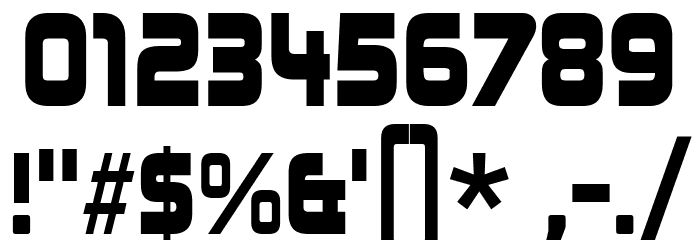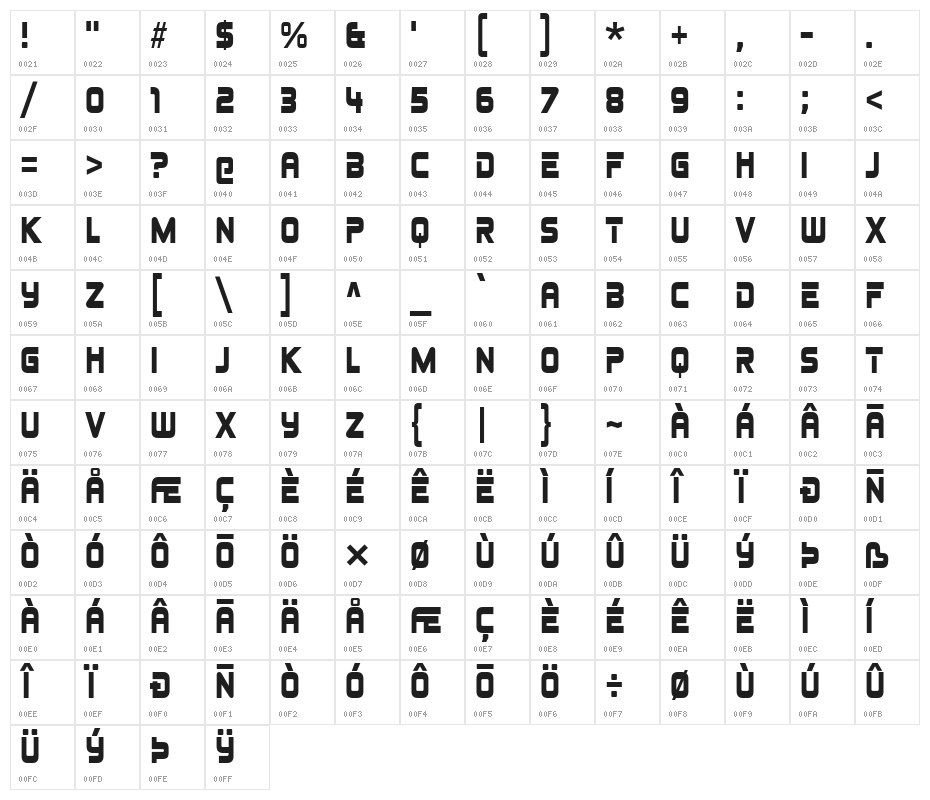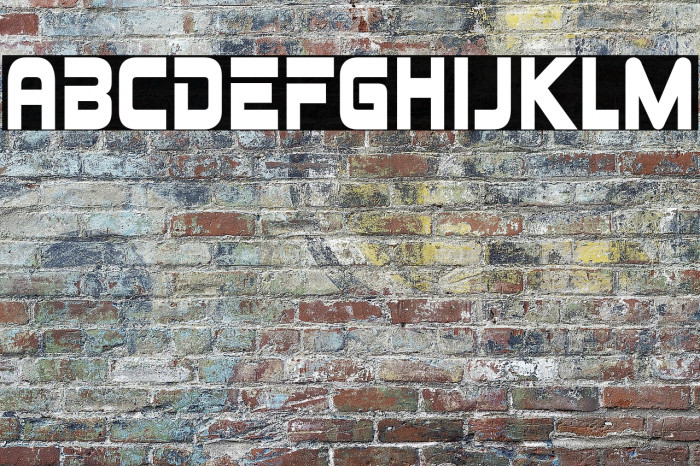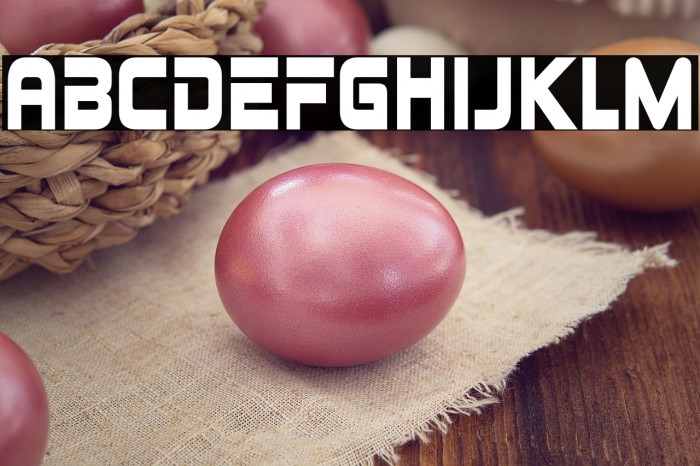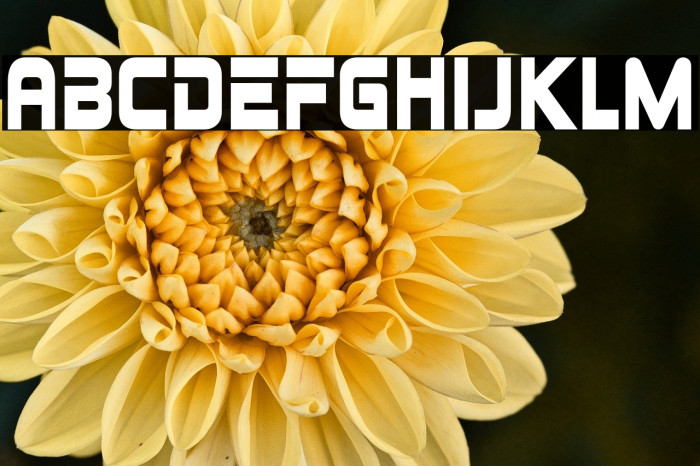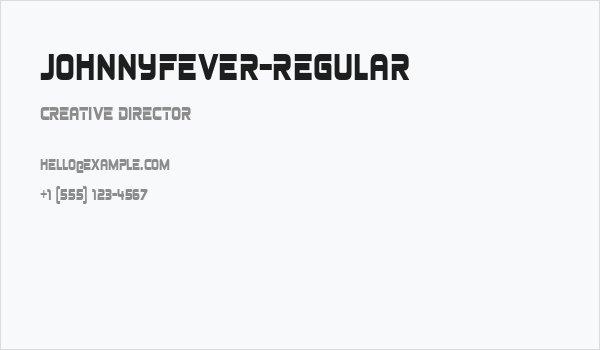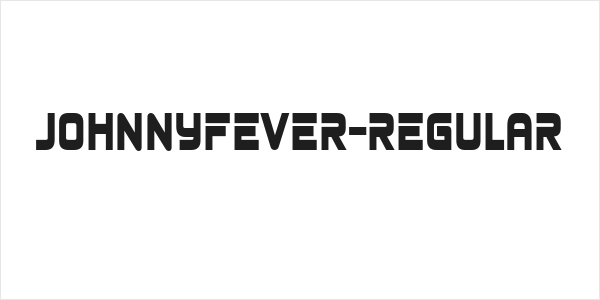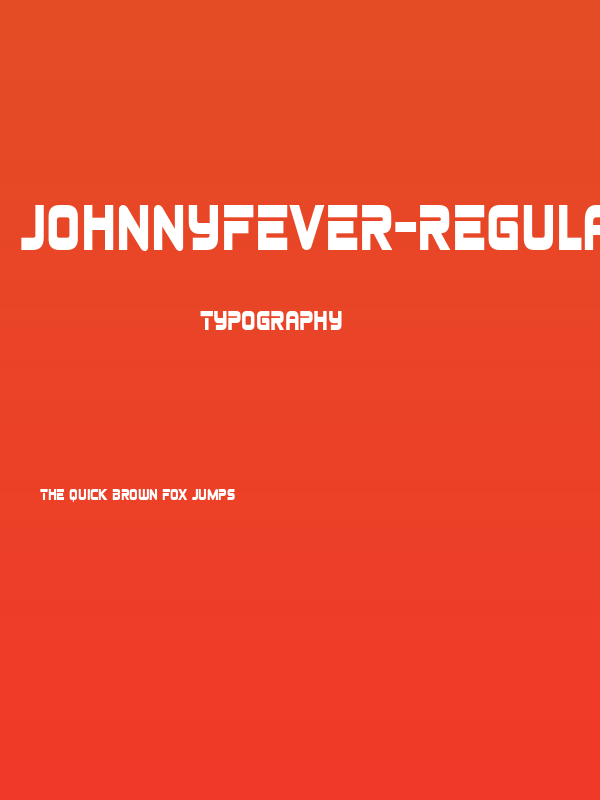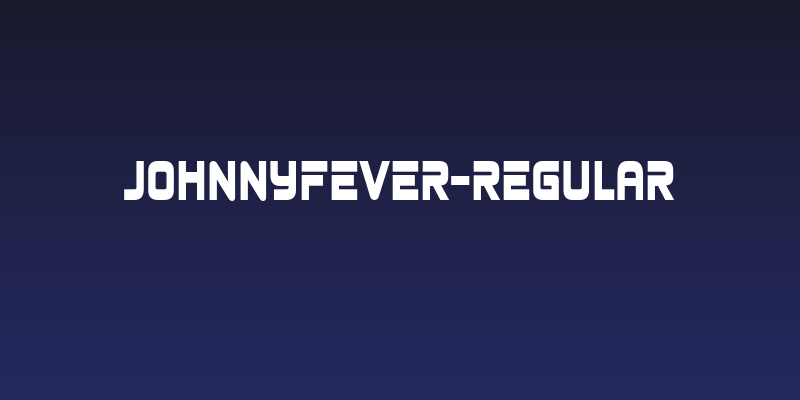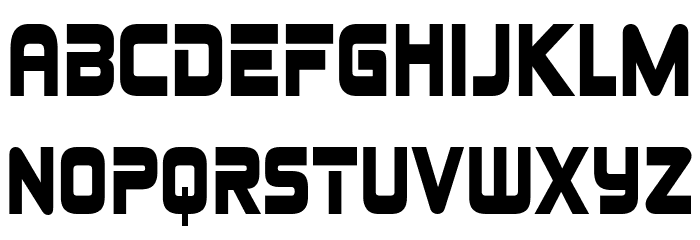
JohnnyFever-Regular Font
JohnnyFever-Regular Description
This font features a bold and modern design with a strong geometric influence. The characters are constructed with uniform stroke widths, giving it a sturdy and robust appearance. The uppercase letters are particularly striking, with a blocky, angular style that conveys a sense of strength and stability. The lowercase letters maintain the same geometric precision, ensuring consistency across the typeface. The numerals are clear and legible, designed to complement the overall aesthetic. Special characters are included, matching the bold and structured style of the alphabet. This font is ideal for projects that require a contemporary and impactful look.
| Proposed Projects | Ideal for branding, headlines, posters, and digital media that require a strong visual impact. |